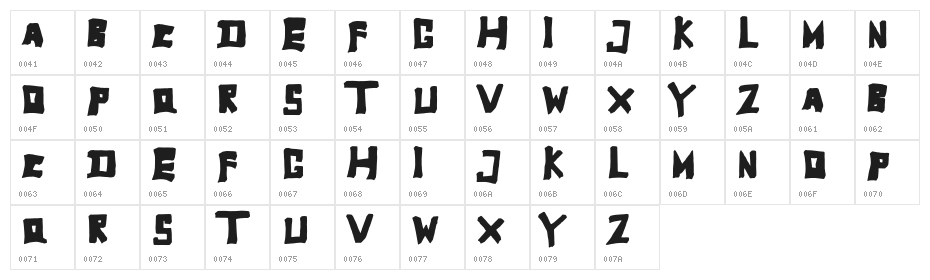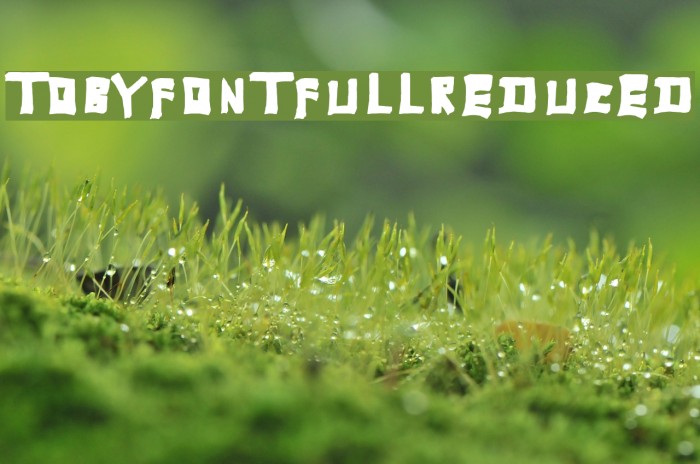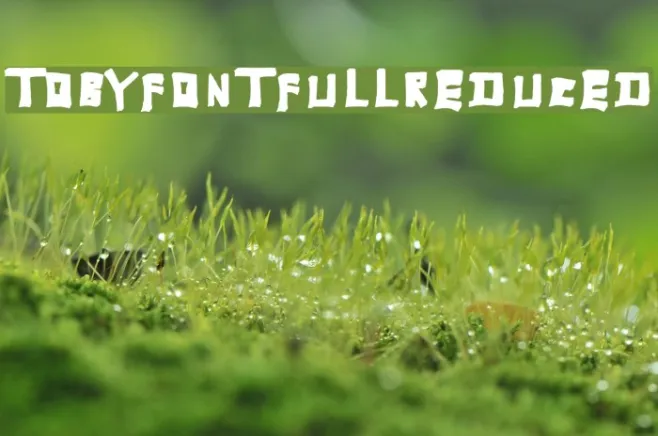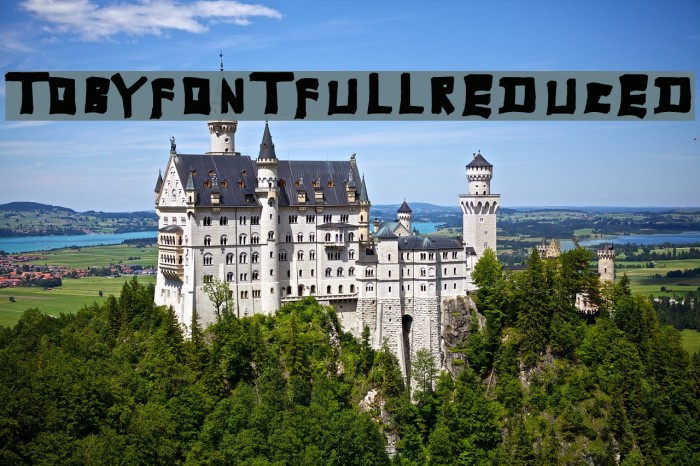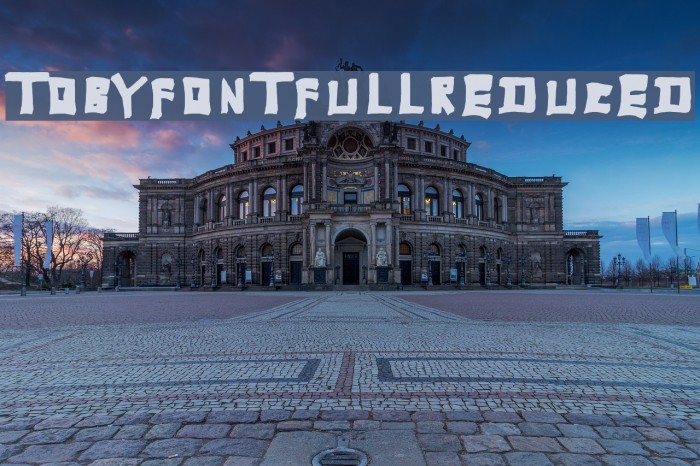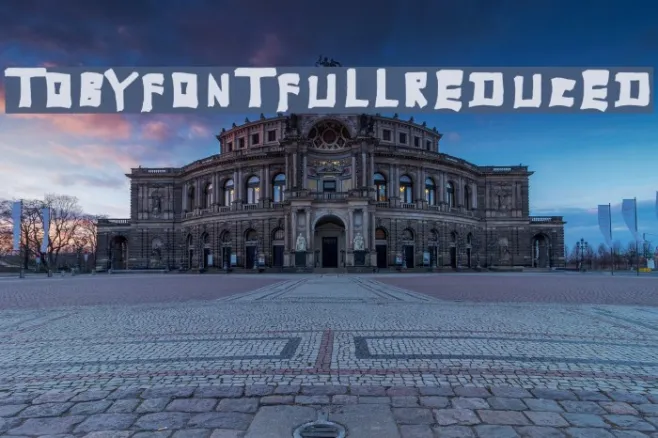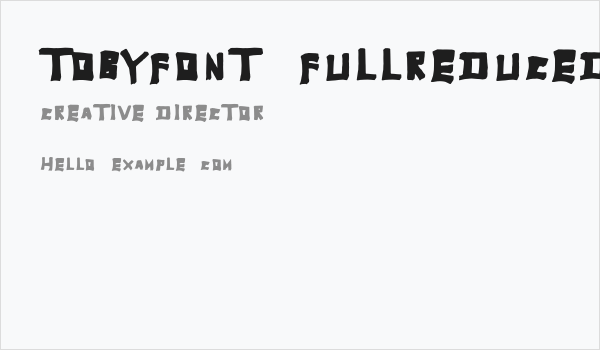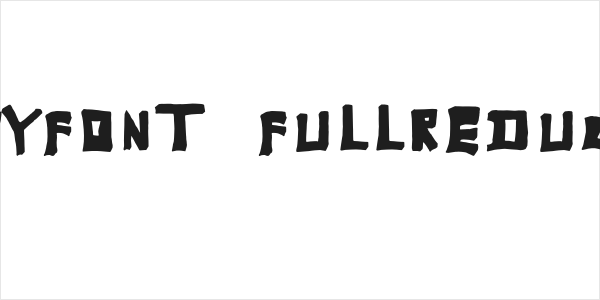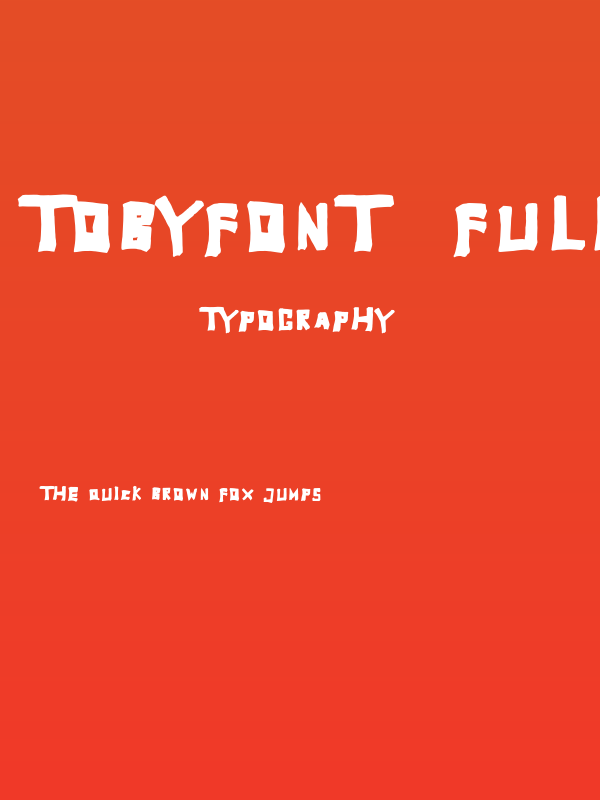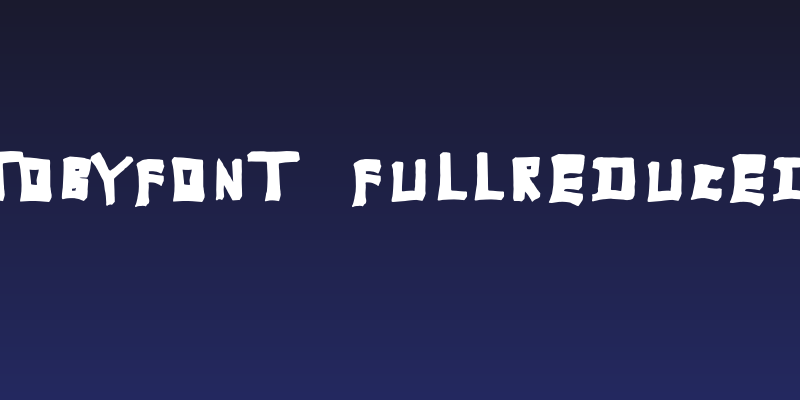
TobyFont-Fullreduced Font
TobyFont-Fullreduced Description
This font features a bold, rugged style with a hand-drawn appearance. The characters are uneven and slightly distorted, giving it a unique, organic look. The uppercase and lowercase letters maintain a consistent style, with thick strokes and irregular edges. The font exudes a sense of boldness and creativity, making it ideal for projects that require a strong visual impact. Its distinctive style is reminiscent of graffiti or street art, adding an edgy and modern touch to any design.
| Overall Style | Modern, Edgy |
| Proposed Projects | Ideal for posters, album covers, streetwear branding, and urban-themed designs. |